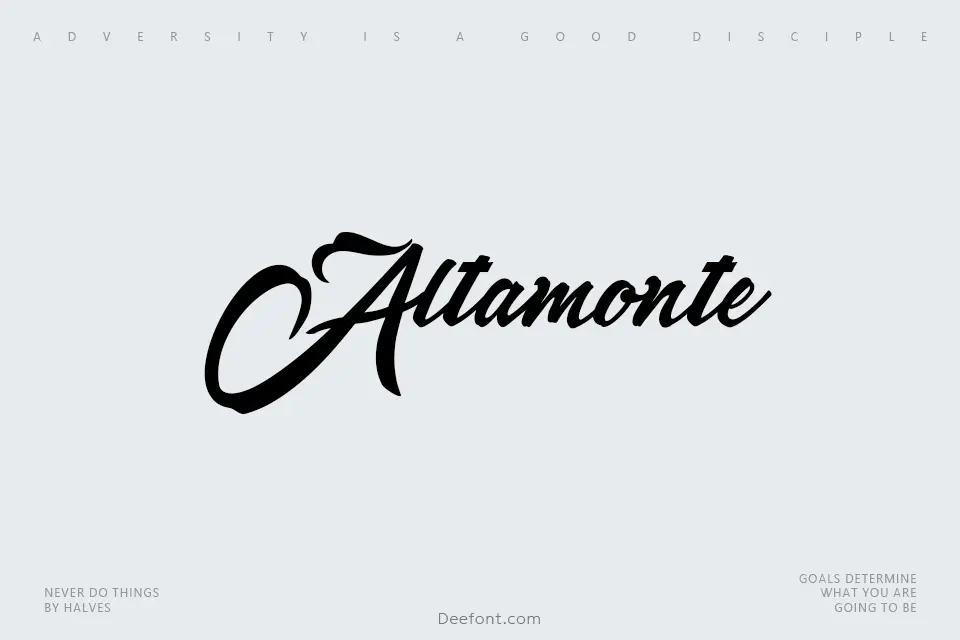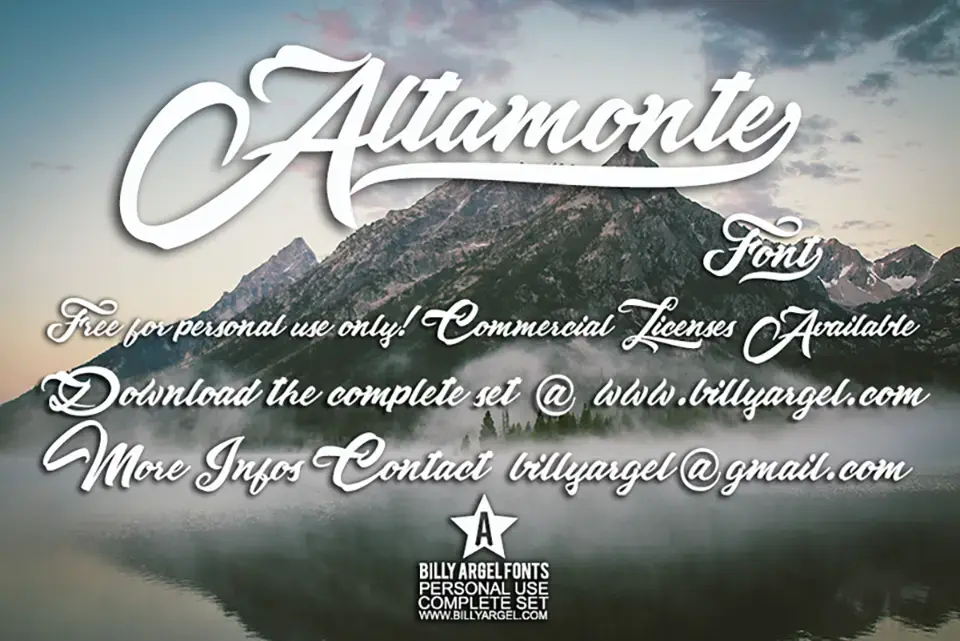
Altamonte Font
Altamonte is a captivating script typeface designed by Brazilian graphic artist Billy Argel, blending vintage calligraphy with modern elegance. Featuring flowing letterforms and decorative flourishes, this display font excels in creating eye-catching headlines, poster designs, logo compositions, and brand identities. The font’s characteristic Old School aesthetic makes it particularly suited for retro-inspired projects, event graphics, and artistic packaging. With its partial character set and organic stroke quality, Altamonte delivers authentic charm for designers seeking distinctive, conversation-starting typography.